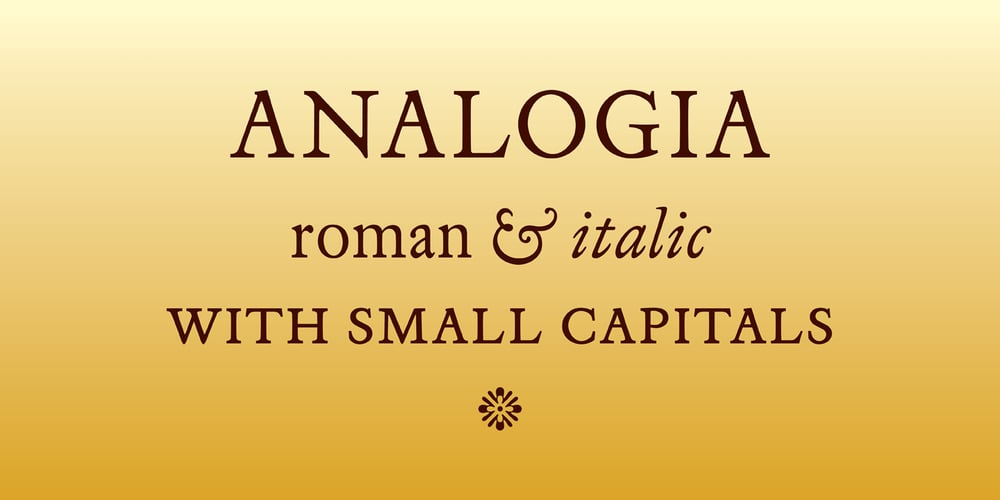
Analogia Font Family was designed by George Tulloch and published by George Tulloch. Analogia contains 2 styles and family package options. Analogia is a digital interpretation of types used in the mid-18th century in books printed at Leuven by Martin van Overbeke. It is intended primarily for use in running text. The roman is businesslike, yet with a distinct personality; it has a generous x-height and is slightly condensed, though without appearing cramped. It is complemented by a more lively italic, which retains some irregularities in the angle of slant that are characteristic of the original. Analogia provides wide support for west, central, and east European languages that use the roman alphabet. Among its OpenType features are ligatures, small caps, several sets of numerals, contextual alternates, intelligent implementation of long ‘s’, and fractions. For more detail, please see the pdf available in the Gallery.